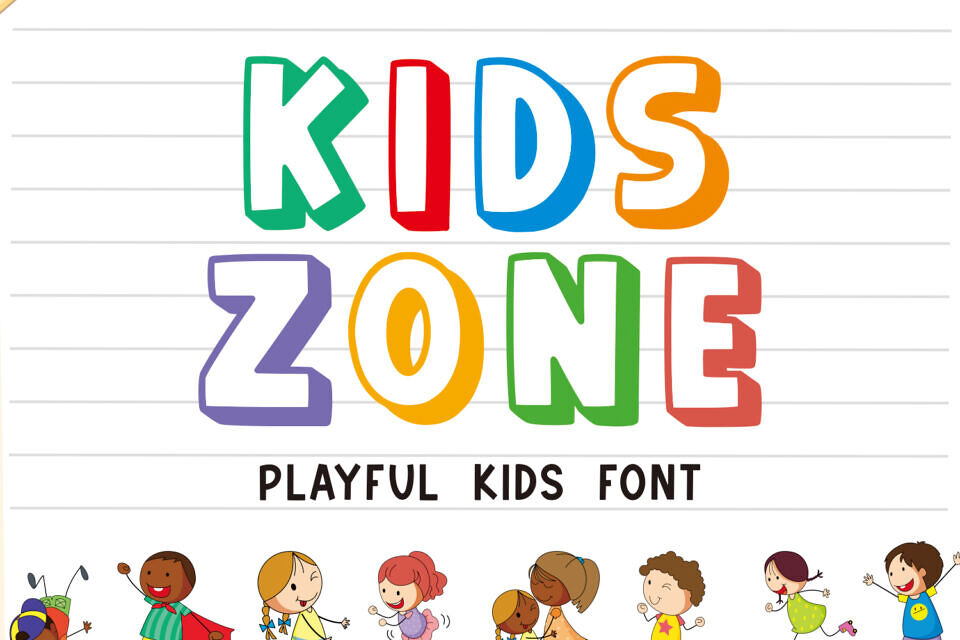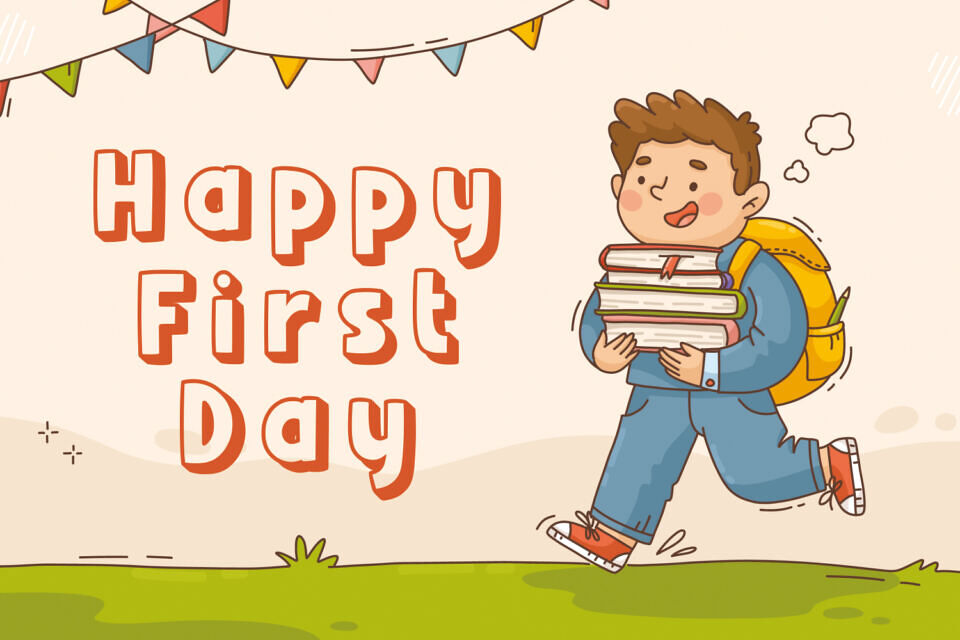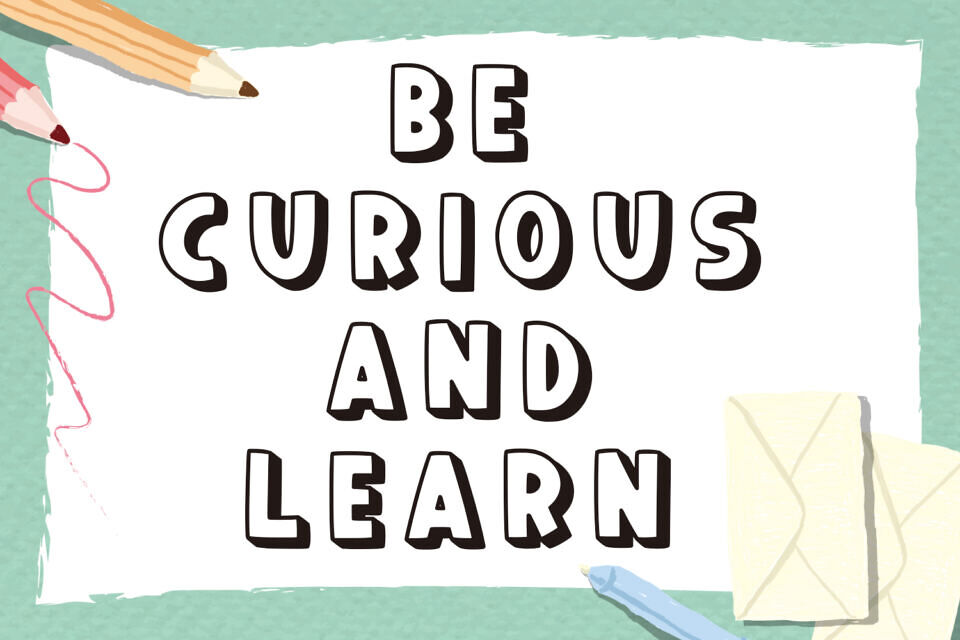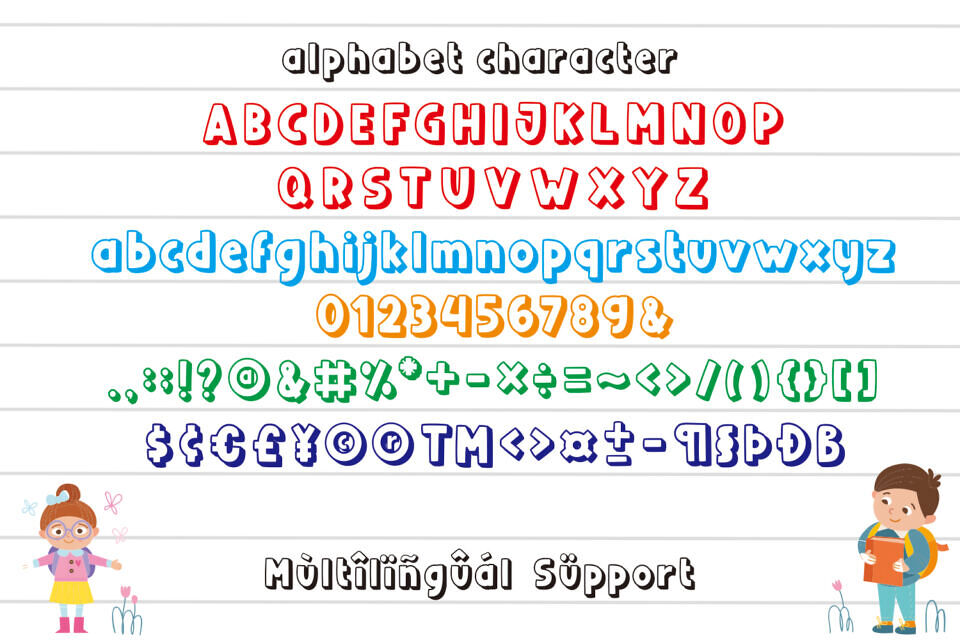
KIDSZONE is a vibrant and playful display font that brings the fun of colorful chalk writings on a blackboard to life. Perfect for evoking a sense of nostalgia, this font is ideal for a wide range of kid-friendly themes and creative projects.
Whether you’re designing back-to-school materials, birthday cards, children’s writings, or chalk-inspired artwork, KIDSZONE adds a lively and cheerful touch. It’s also perfect for holiday greetings like Thanksgiving, crafting endeavors, kid-centric greeting cards, decorations, craft lettering projects, and even embroidery.